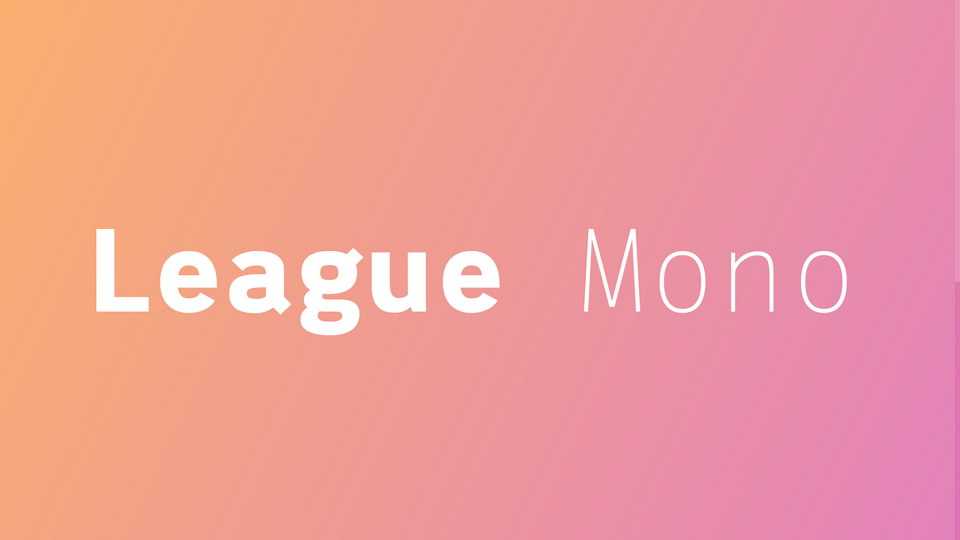
Download League Mono typeface, a monospaced variable font family in 40 predefined styles League Mono featuring a mashup of sorts, inspired by some beautiful forms found in both Fira Mono, Libertinus Mono, and Courier.
Designer: Tyler Finck